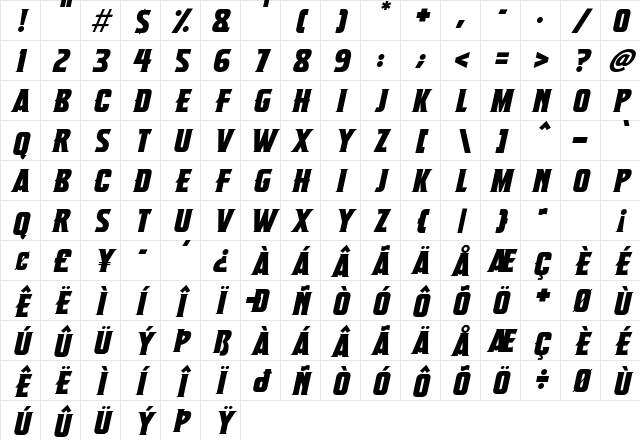
Dragon Slayer is a composed and adaptable typeface that performs quietly and consistently across a wide range of design contexts. The slanted form adds forward momentum and visual energy.